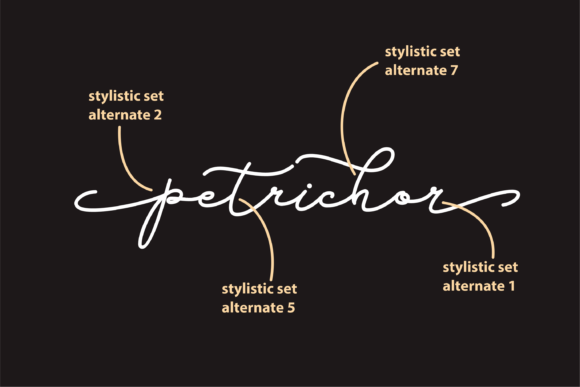
Prepare to be mesmerized by the enchanting charm and sophistication of Petrichor, a masterpiece in the world of handwritten fonts. Its every stroke and curve exudes elegance, creating a visual symphony that will effortlessly elevate your designs.
Crafted by the renowned artist, Toko Laris Djaja, Petrichor embodies a delicate balance of artistry and functionality. Its characters dance across the page with a graceful flow, harmonizing effortlessly with a myriad of creative endeavors.
As a PUA-encoded font, Petrichor grants you the power to unlock a realm of typographic possibilities. With effortless ease, you can summon a symphony of glyphs and swashes, empowering you to infuse your designs with an unparalleled level of detail and refinement.
Whether you're crafting personal logos, branding materials, or any other design that calls for a touch of timeless elegance, Petrichor is your muse. Its versatility knows no bounds, allowing it to seamlessly adapt to a wide range of aesthetics.
Indulge in the allure of Petrichor and witness the transformative power it holds for your designs. Its enchanting essence will ignite your creativity, inspiring you to create masterpieces that resonate with beauty and sophistication. Embrace Petrichor today and let your designs blossom into works of art.